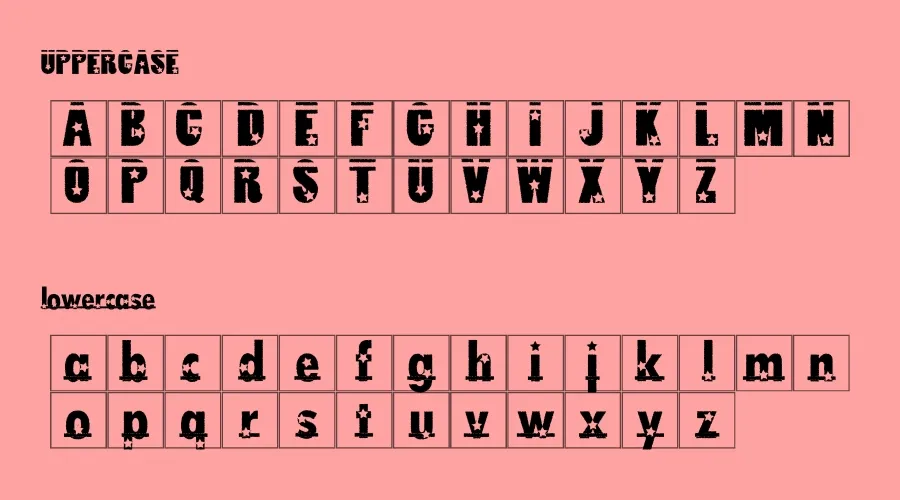
Loserboi Allstar Font
About Loserboi Allstar Font
The Loserboi allstar font was developed by a famous typographic designer known as the name of loserboi and is under the category of the decorative texture family. This font contains multiple types of weights (bold, italic, Regular) and styles.
This font includes 653 unique glyphs with various types of characters such as uppercase letters, numerals, symbols, digits, and punctuations.